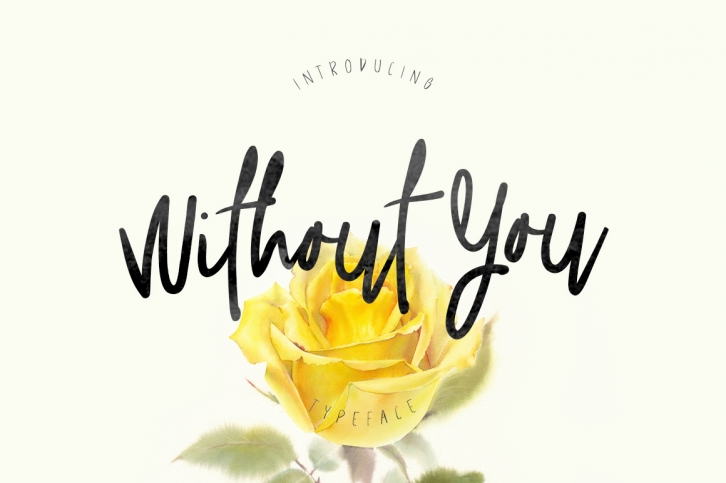
Without You Typeface is a great font that was designed by Maulana Creative. Imagine the amount of combinations you can create using this font! The archive is 6.28 MB and it was released on September 6, 2017. Without You Typeface looks beautiful on wedding invitations, greeting cards, logos, posters, labels, t-shirt designs, logos, business cards and is perfect for use in ink or watercolor works, fashion, magazines, packaging and food menus, children's books and more!